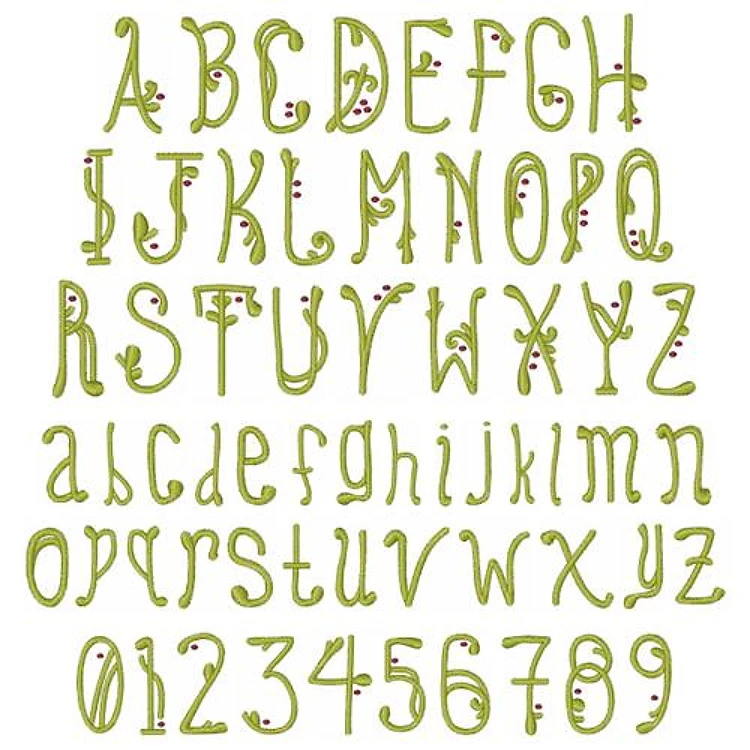
Harvest Berry Font Embroidery Font - Decorative Nature-Inspired Lettering - PES, DST & 11 formats by Embroidery Patterns and other embroidery fonts available at EmbroideryDesigns.com.
Embroidery Patterns is happy to present Harvest Berry Font Embroidery Font - Decorative Nature-Inspired Lettering - PES, DST & 11 formats machine embroidery font which has Decorative machine embroidery font with vine-like elements and berry details in light green. Ideal for holiday-themed projects on table linens and fabric decorations. Available in PES, DST, and 11 other formats. included. If you would like to view more embroidery fonts and alphabets please search our embroidery fonts page.